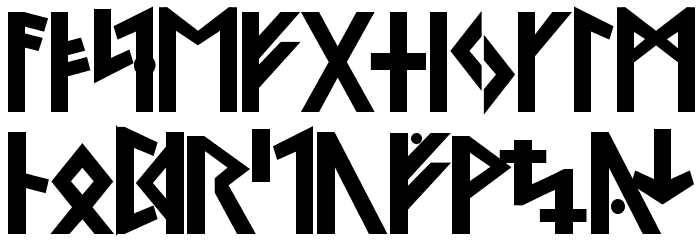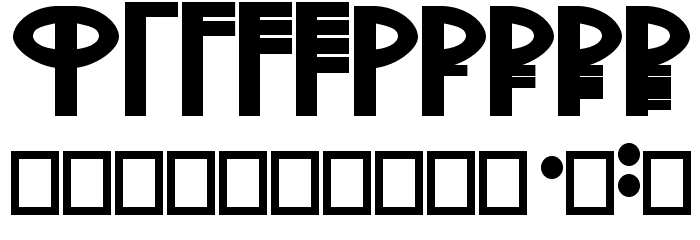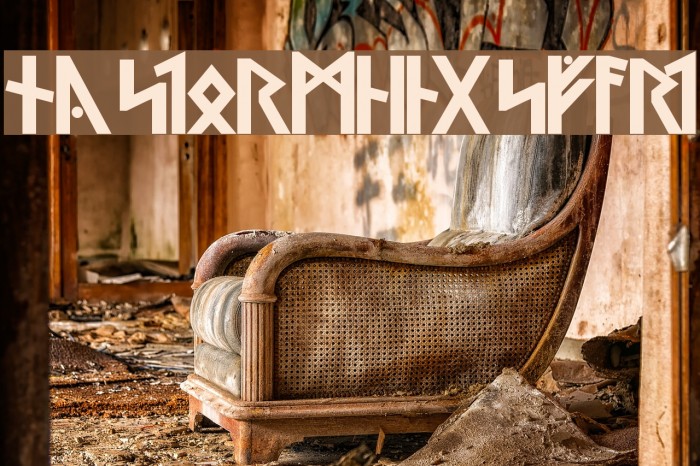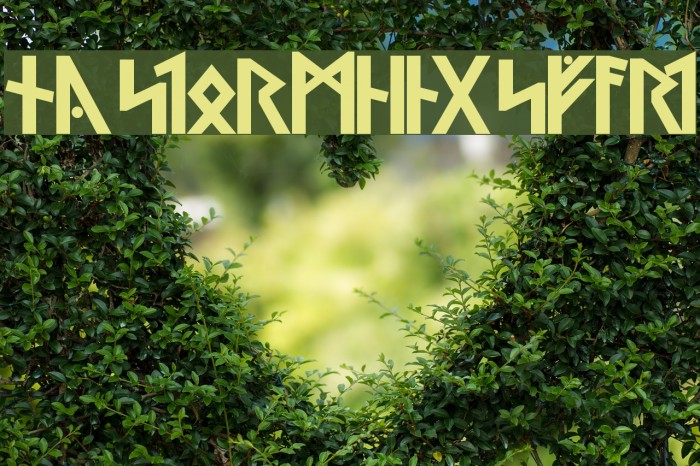
Ny Stormning Svart Font
This font features a bold and angular design reminiscent of ancient runic alphabets. Each character is crafted with sharp edges and geometric shapes, creating a striking and powerful visual impact. The letters are uniformly bold, with consistent stroke thickness throughout, giving the font a cohesive and robust appearance. The unique style of the characters makes it ideal for projects requiring a historical or mystical aesthetic. The font's distinctiveness is further enhanced by its high contrast and tight character spacing, which contribute to its legibility and visual appeal.
A bold, angular font inspired by ancient runic alphabets with high contrast and tight spacing.
- Proposed Projects: Ideal for fantasy-themed designs, historical recreations, game titles, and decorative posters.
- Character Spacing: Tight